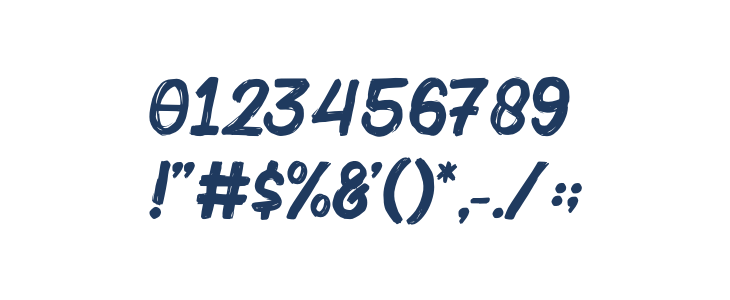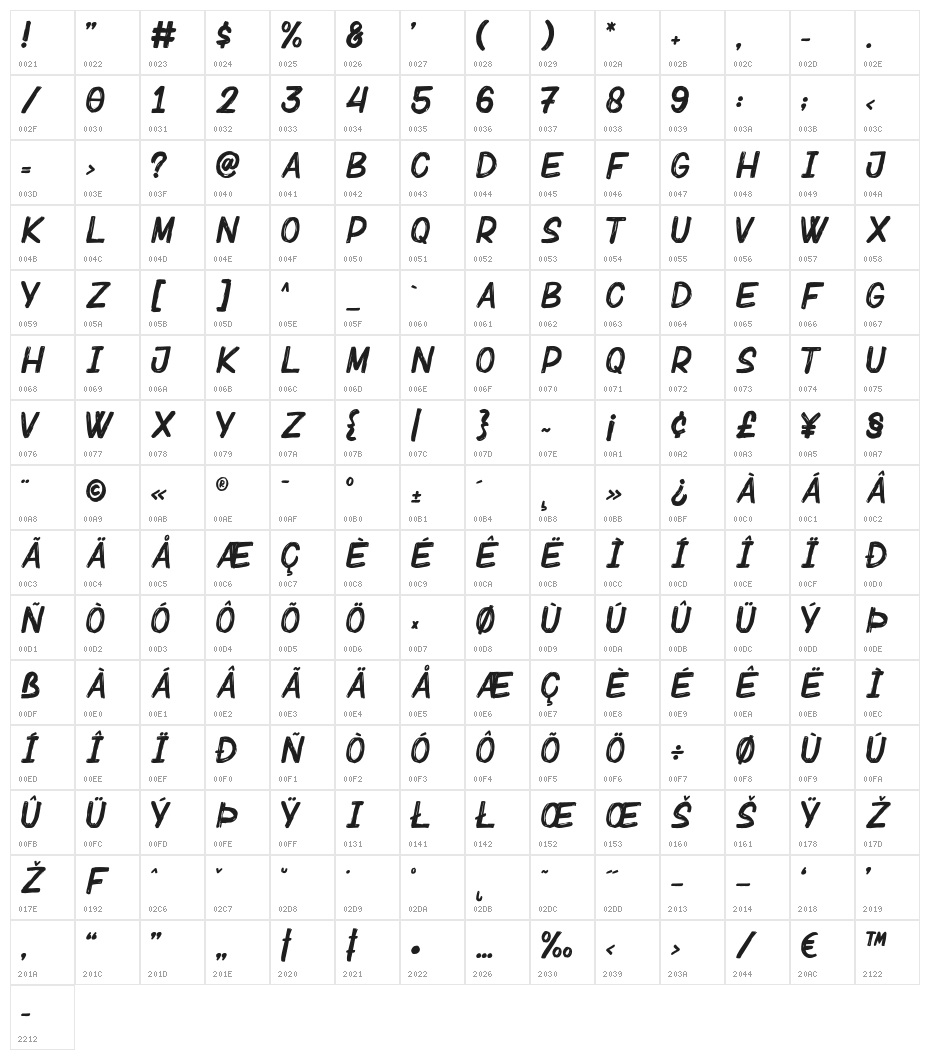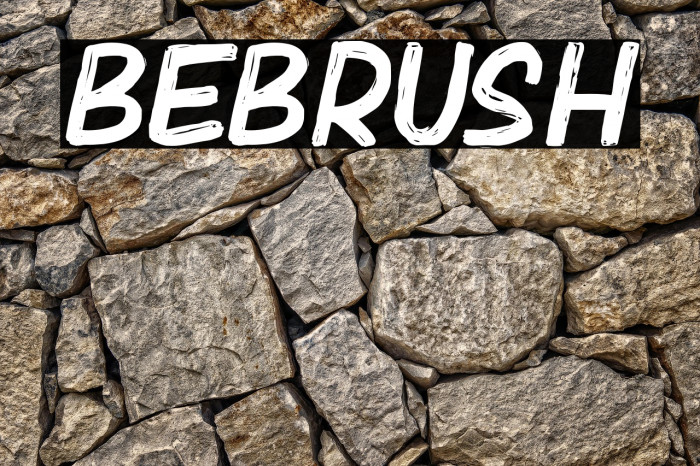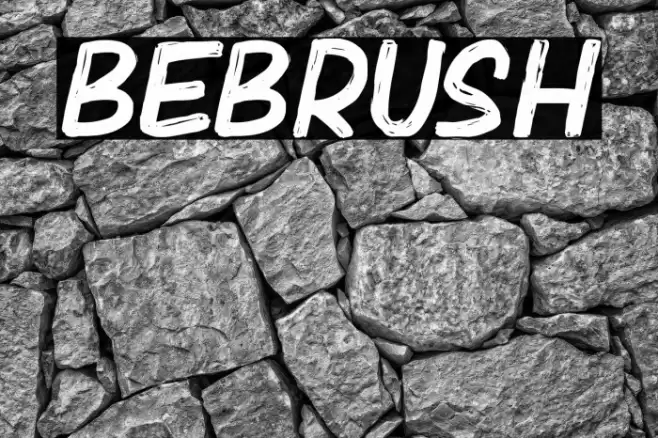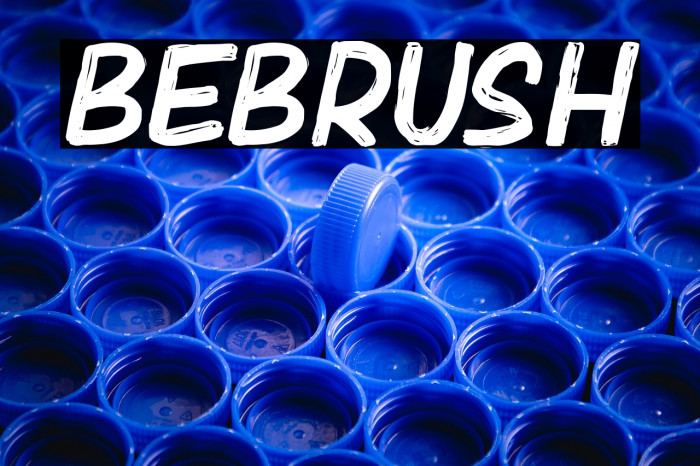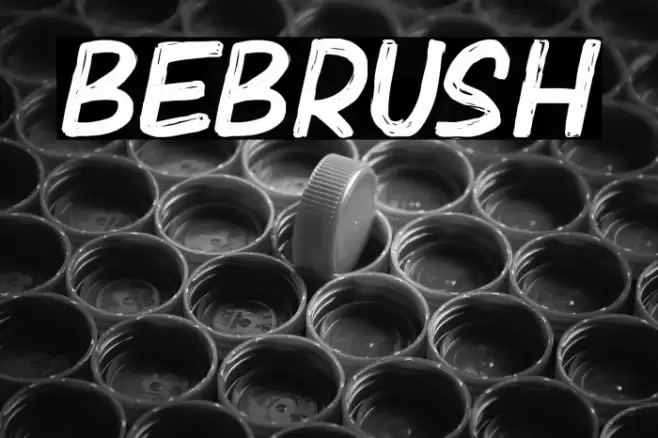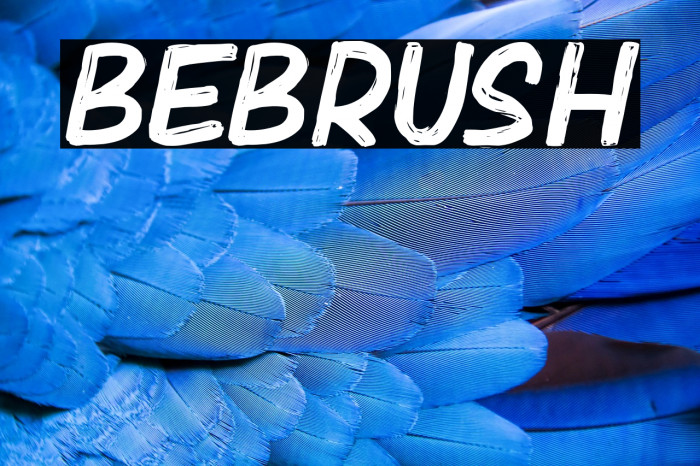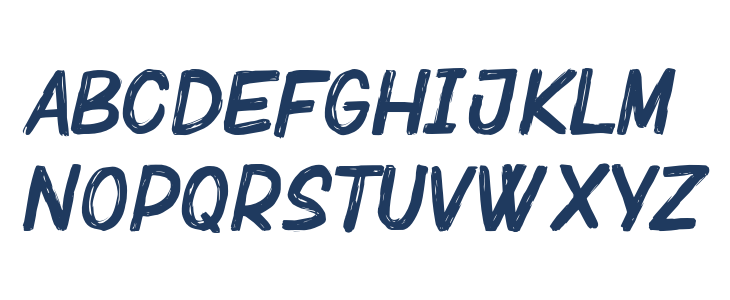
Bebrush Font
Bebrush Description
This font exudes a bold and energetic vibe, characterized by its brush-like strokes that give it a dynamic and hand-painted appearance. The letters are slightly slanted, adding a sense of movement and fluidity. The uppercase and lowercase letters maintain a consistent style, with rounded edges and varying stroke thickness that mimic the natural flow of a brush. The numbers and special characters follow the same aesthetic, ensuring a cohesive look across all elements. This font is perfect for projects that require a personal touch or a creative flair, making it ideal for artistic and expressive designs.
| Use Case | Logos, Posters, Creative projects |
| Proposed Projects | Ideal for posters, branding, logos, and creative projects that require a personal and artistic touch. |